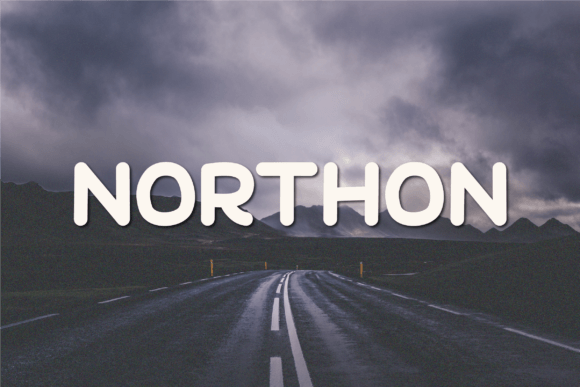
Journey into the realm of boundless creativity with Northon Font, a sans serif masterpiece that captivates with its quirky charm and playful spirit. Ascend to new heights of expression, letting your imagination run wild as you explore the endless possibilities this font holds. Designed meticulously by the talented Becraft, Northon Font is not just a collection of letters; it's an artistic voyage waiting to be embarked upon.
Dare to break free from the ordinary and embrace the whimsical essence of Northon Font. Its all-caps design dances across your screens, captivating your audience with its unique and eye-catching presence. Whether you're a seasoned designer seeking to elevate your projects or a creative enthusiast yearning for a touch of whimsy, Northon Font is your trusted companion, ready to transform your visions into extraordinary realities.
Unleash your inner artist and let Northon Font ignite your creative spark. Its versatility knows no bounds, flowing effortlessly from the digital realm to the physical world. Craft one-of-a-kind greeting cards that warm hearts, design presentations that leave a lasting impression, or bring life to your digital creations with a touch of playful elegance. Northon Font is your versatile muse, adapting seamlessly to your every creative endeavor.
Step into the world of Northon Font and let your imagination soar. Witness the transformation of your designs as they take on a new life, brimming with personality and charm. Your words will dance across the page, captivating your audience with their playful spirit, leaving an unforgettable mark on their minds. Northon Font is not merely a font; it's an experience that will redefine your creative journey.